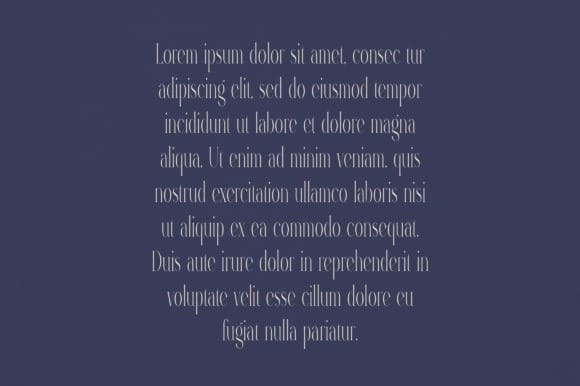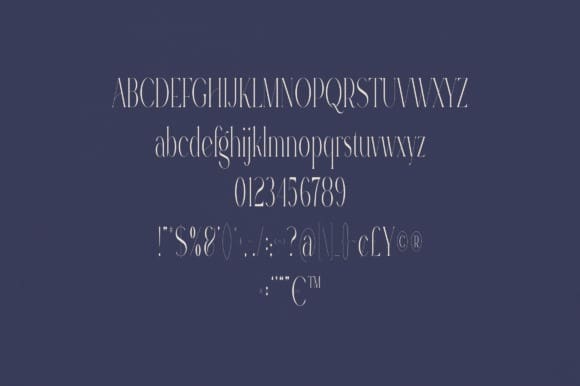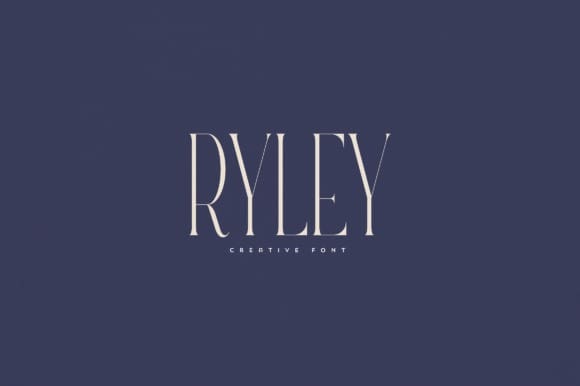
Rylei Font
Rylei Font is an elegant and versatile font that will make your typography truly unique! It will enchant every logo, branding, headline, or plain text!